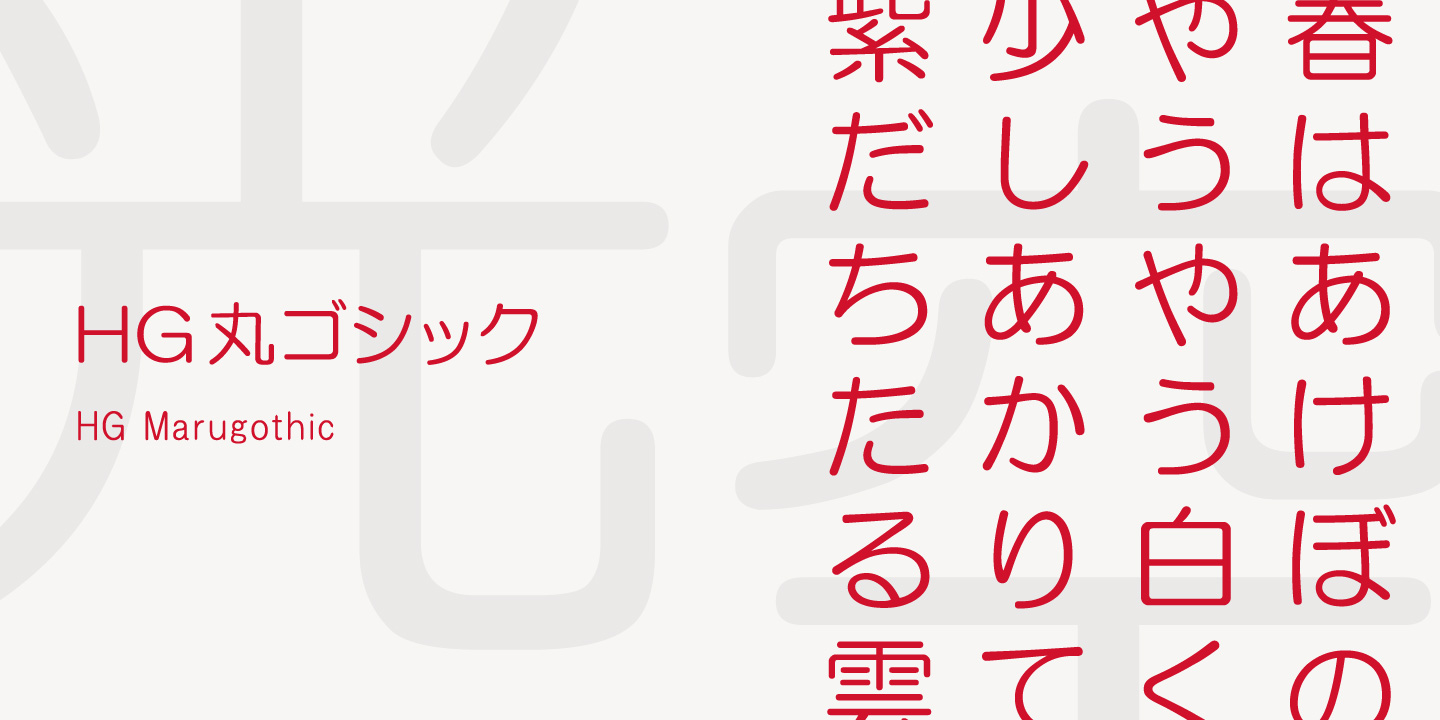
HG Marugothic Font is perfect for Japanese restaurant branding, anime convention signage, manga comic book lettering, zen meditation center materials, sushi bar menus, kawaii product packaging, Japanese cultural festival promotions, minimalist design projects, modern Tokyo-inspired advertising, and any project requiring clean Japanese aesthetics with contemporary minimalism and authentic Eastern sophistication.
What makes HG Marugothic Font exciting is its clean minimalism and authentic Japanese design philosophy that embodies the refined simplicity of modern Japanese typography and the sophisticated elegance of contemporary Eastern aesthetics. The typeface features rounded, geometric letterforms with perfect balance and harmonious proportions that evoke the peaceful precision of Japanese design principles and the artistic beauty of minimalist perfection. Its zen-like character design speaks to audiences who appreciate clean design, cultural authenticity, and the transformative power of minimalist philosophy, making it perfect for modern brands seeking to communicate simplicity, precision, and the timeless appeal of Japanese design aesthetics that create harmony through balanced visual communication.
HG Marugothic Font family includes light, regular, medium, and bold weights with complete character sets featuring uppercase and lowercase letters, clean numerals, minimalist punctuation marks, and subtle Japanese-inspired elements. The typeface incorporates authentic Japanese design principles and modern minimalist techniques that enhance its clean appearance while maintaining exceptional readability across all contemporary applications and Eastern-inspired design projects.
Whether you're creating Japanese cultural branding, designing minimalist marketing materials, or developing zen-inspired promotional campaigns, HG Marugothic Font Free Download provides the perfect typographic foundation that honors Japanese design tradition and contemporary minimalism. The font's clean appeal and cultural authenticity make it particularly effective for Japanese businesses, minimalist brands, and contemporary design agencies. Its zen aesthetics translate beautifully across modern signage, cultural publications, and digital platforms, ensuring your brand communicates the kind of authentic Japanese sophistication and minimalist elegance that resonates with audiences seeking clean design and the peaceful harmony of Japanese aesthetic philosophy.